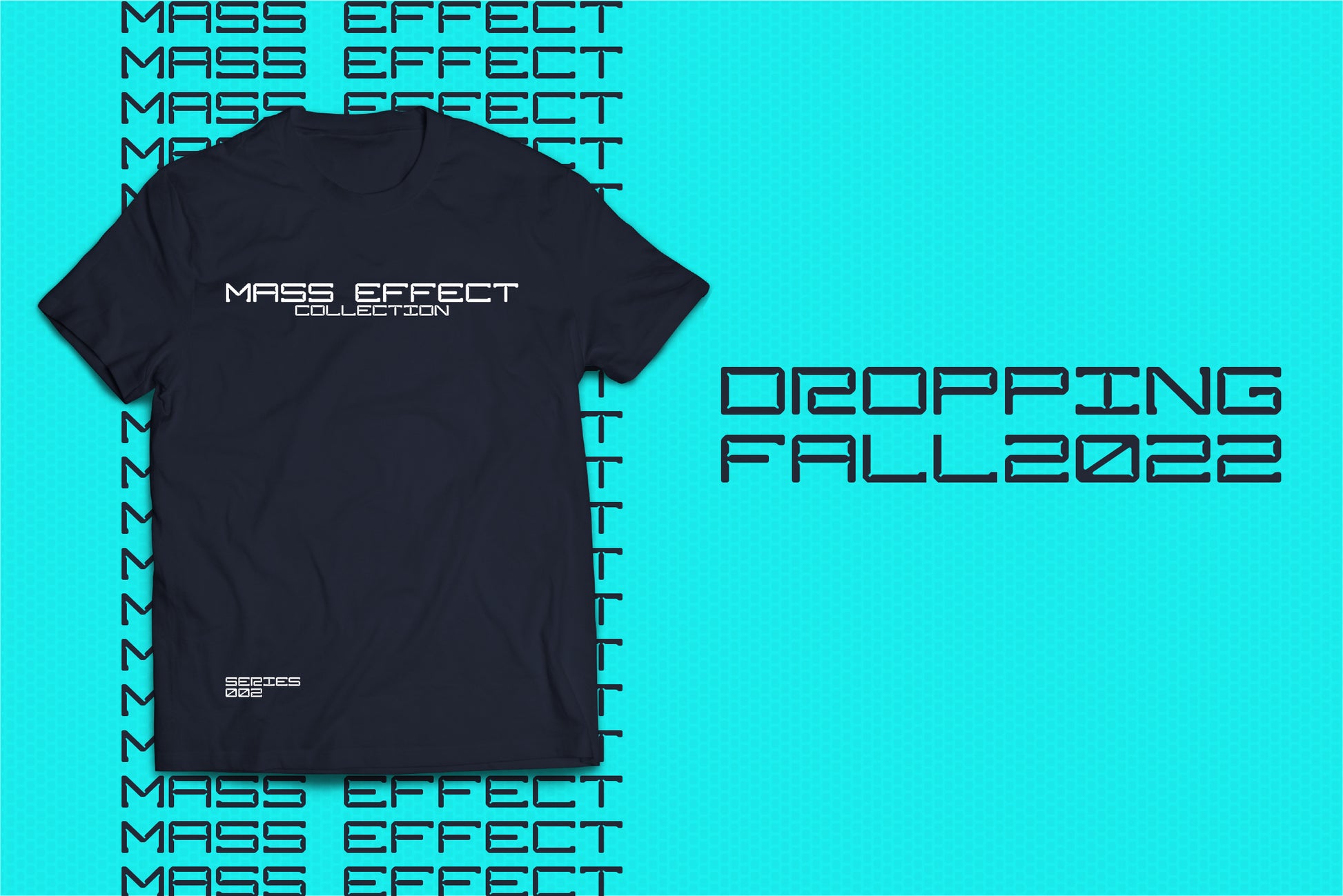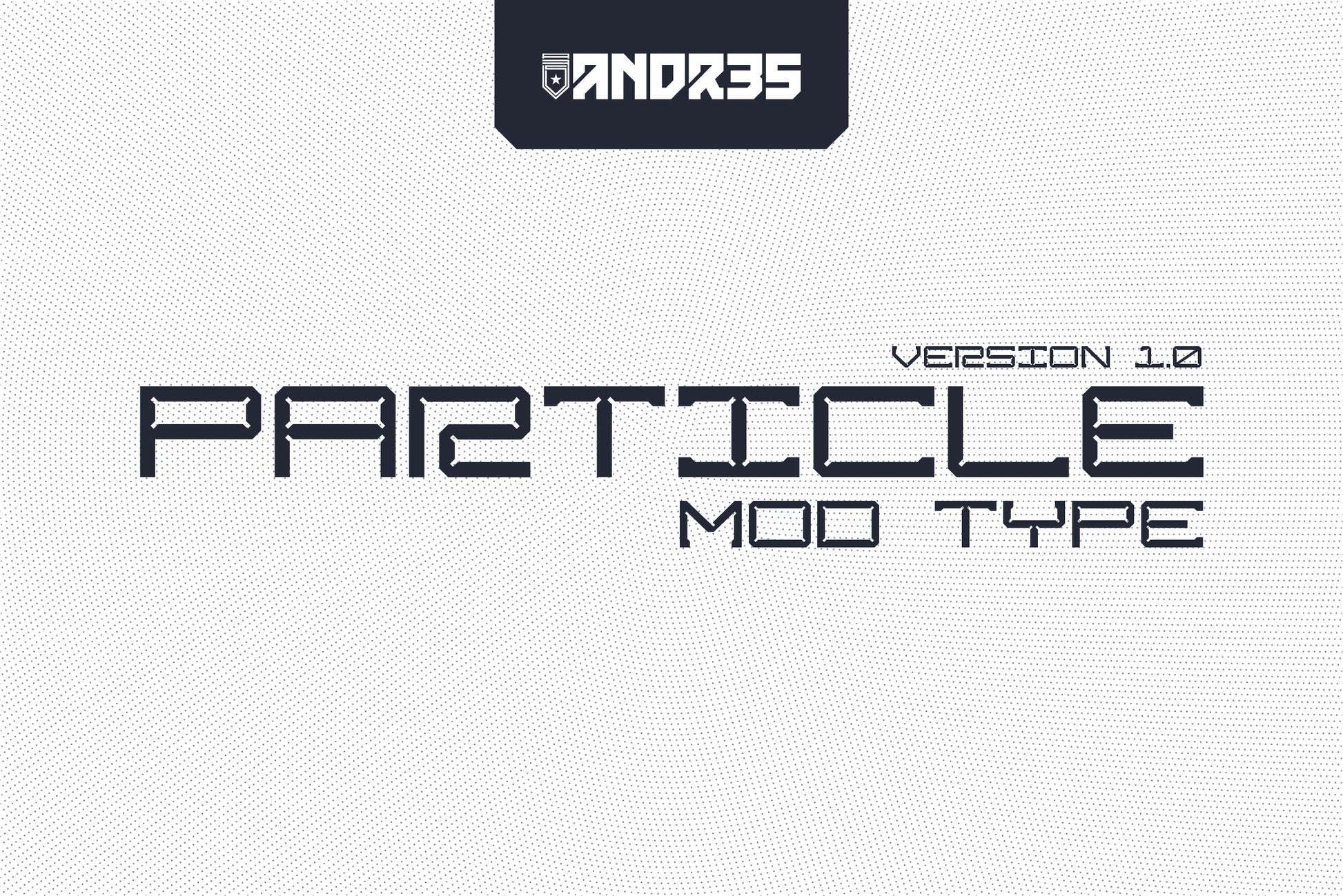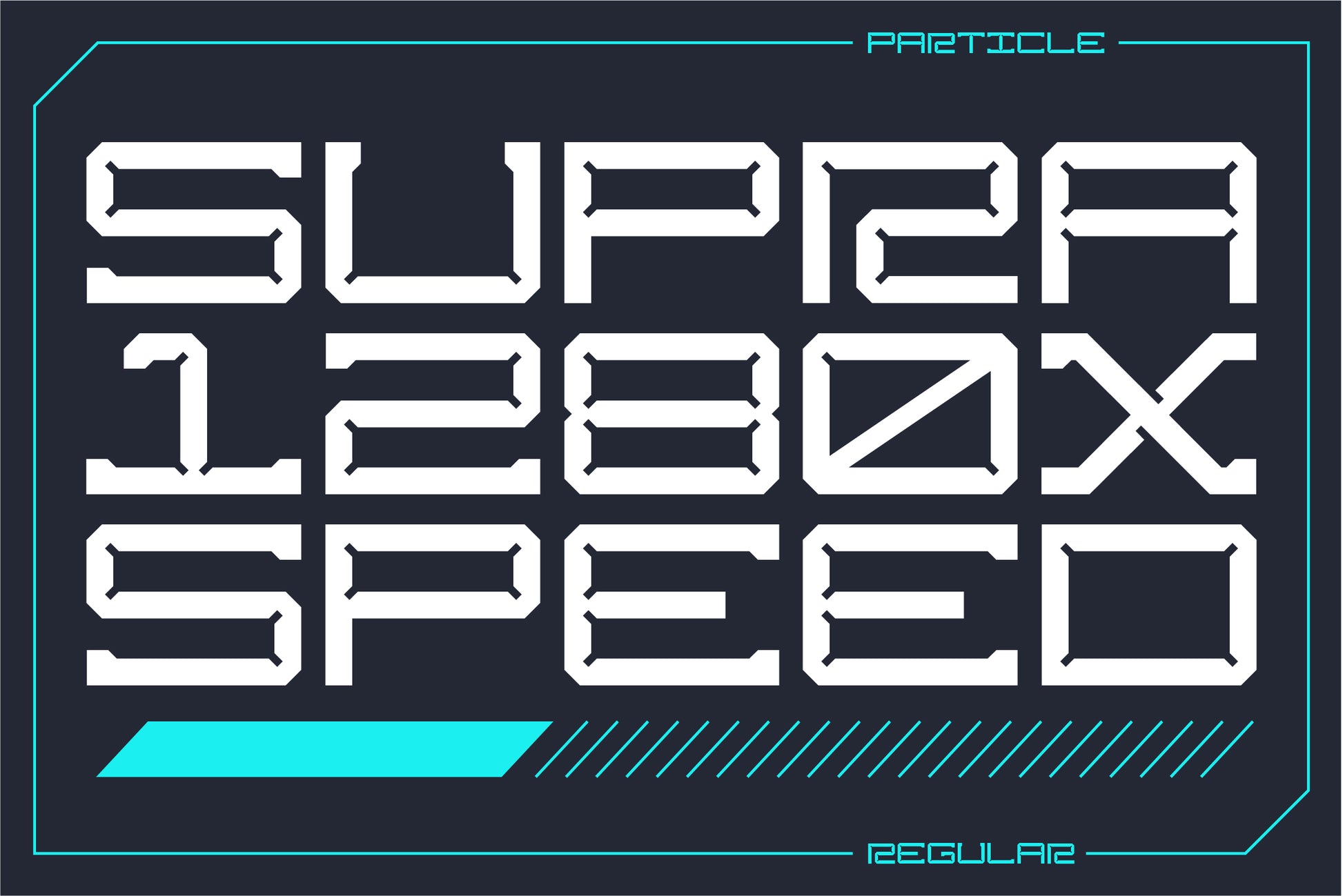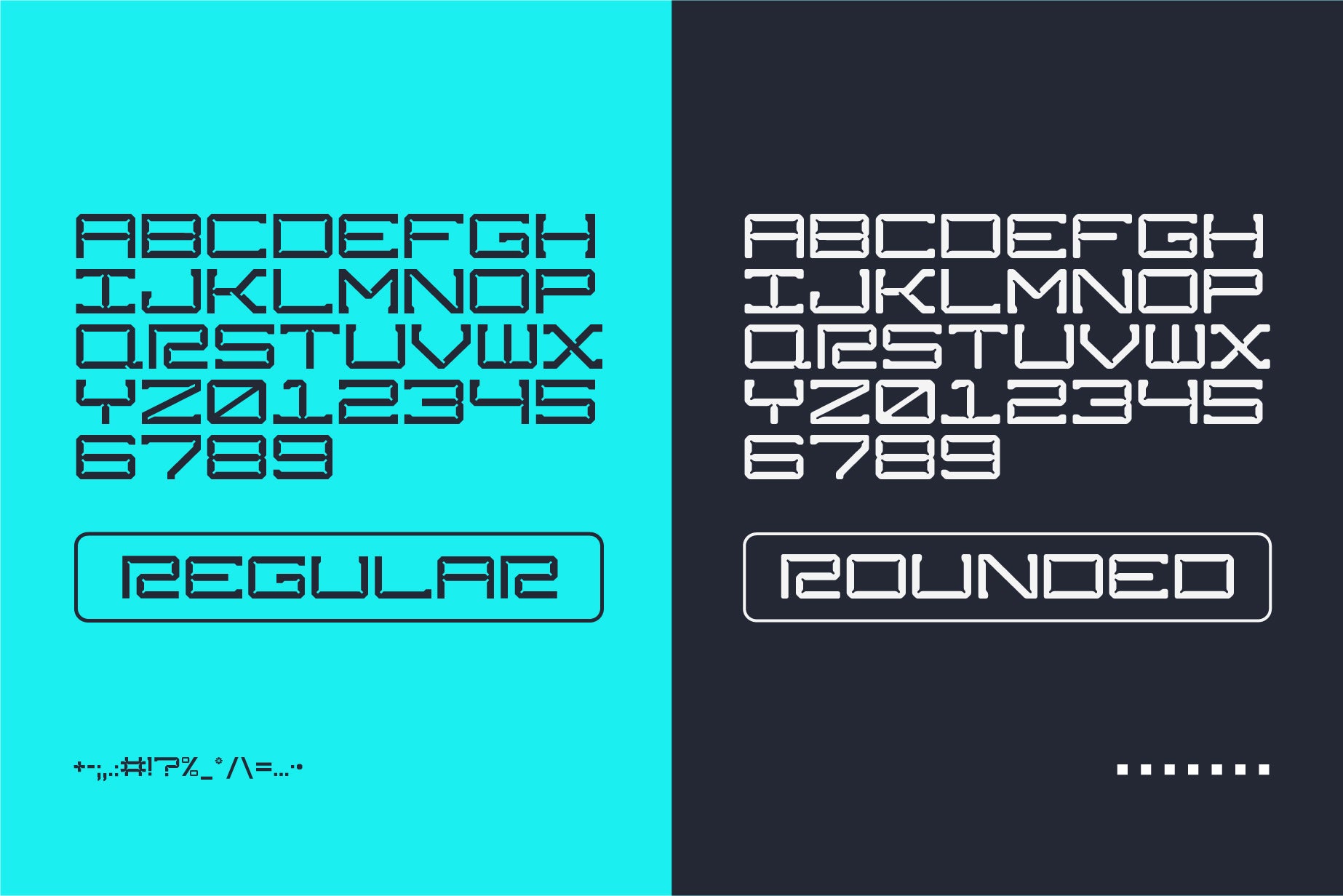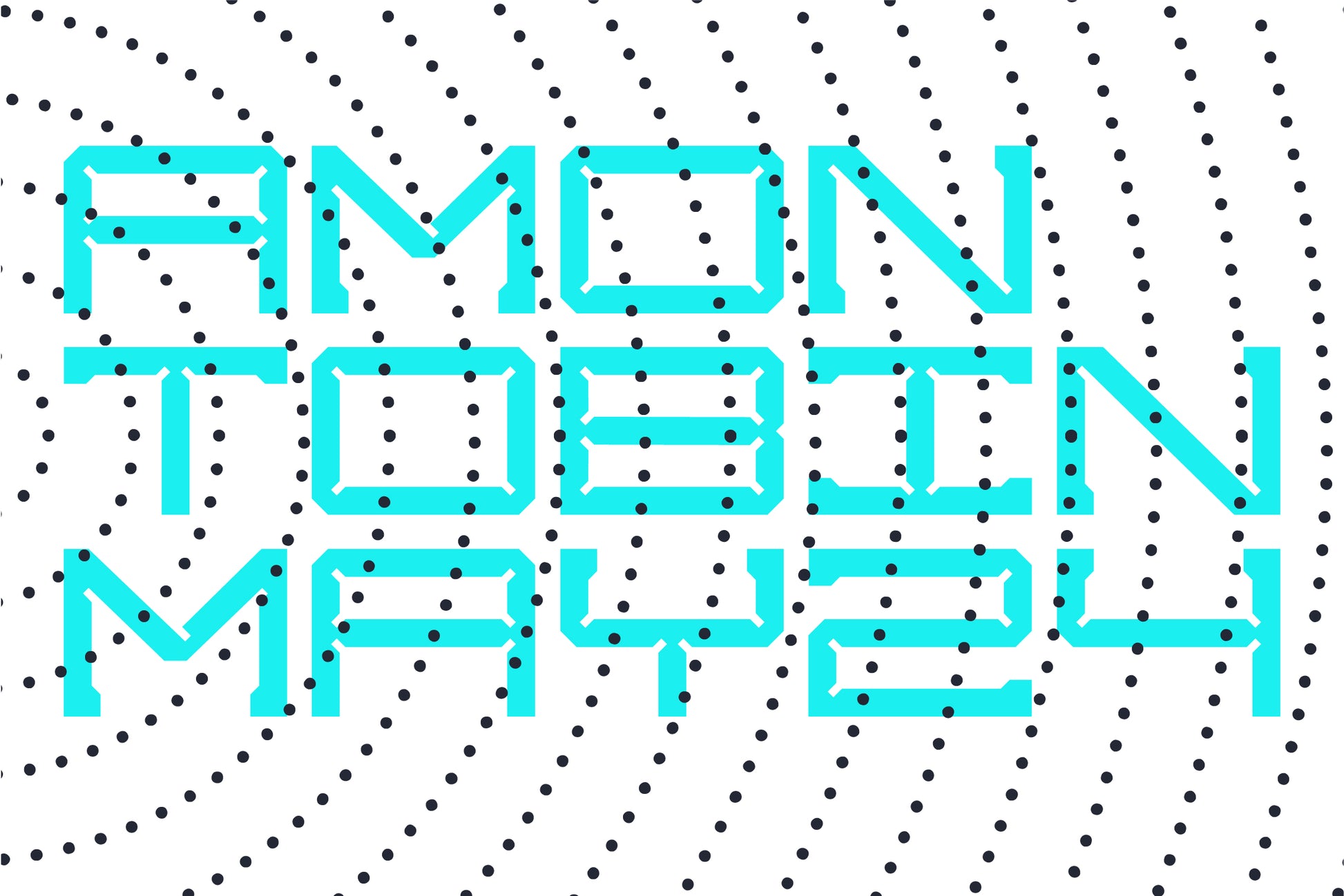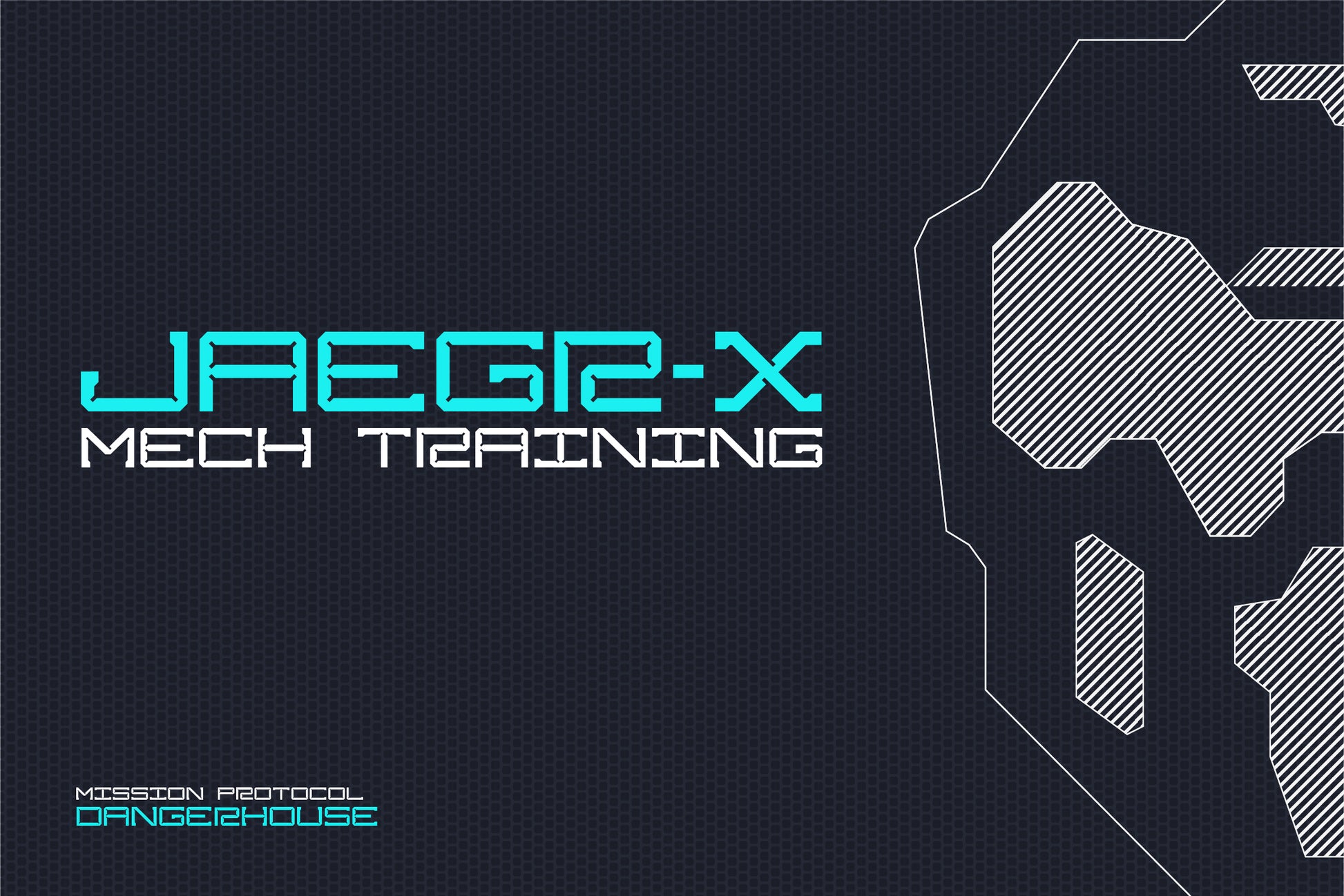
Particle Typeface
Particle is a futuristic, grid-based headline font with inspiration coming from the auto, streetwear and anime scenes. Particle's large ink traps play into the industrial while the wide open grid allows for a legible reading style whilst appearing complex.
As of 04/2022 this is a first version and I'm hoping to update it moving forward. That said, it's got the basic A-Z, 0-9, and other basic punctuation to get you started.